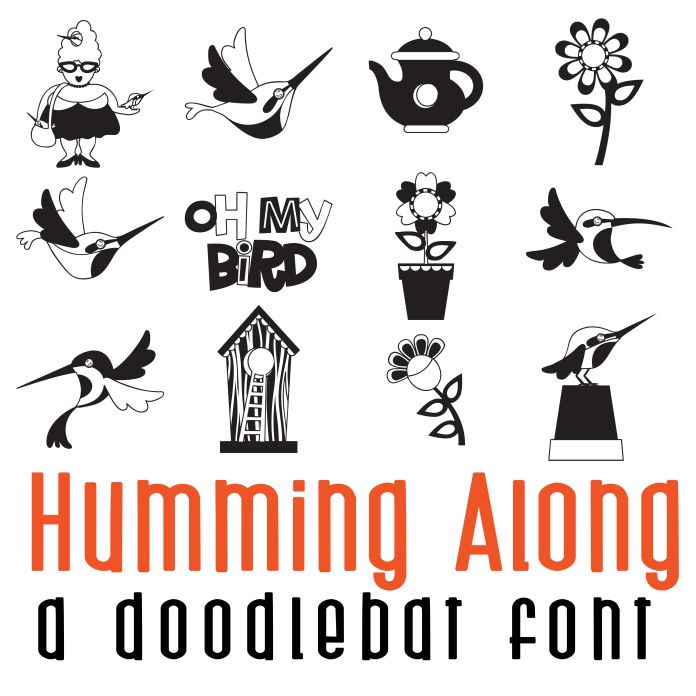
This fun full color font features 26 humming bird and spring imagery. Perfect for classrooms, teachers, gifts, decor, scrap book pages, planner stickers and more!